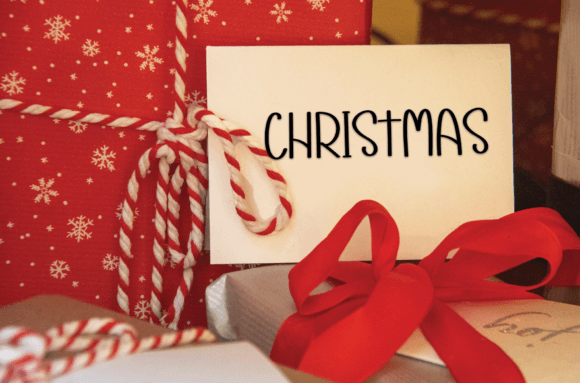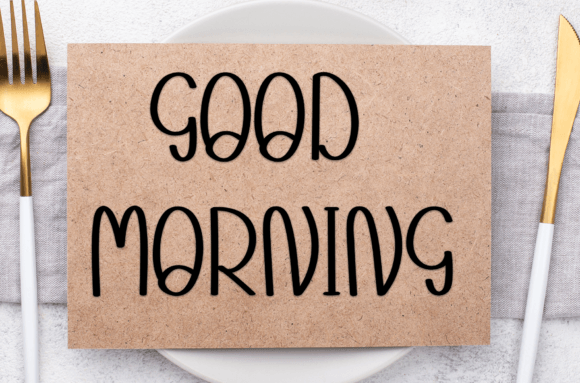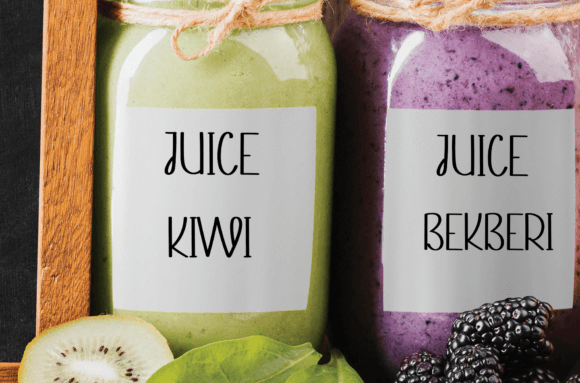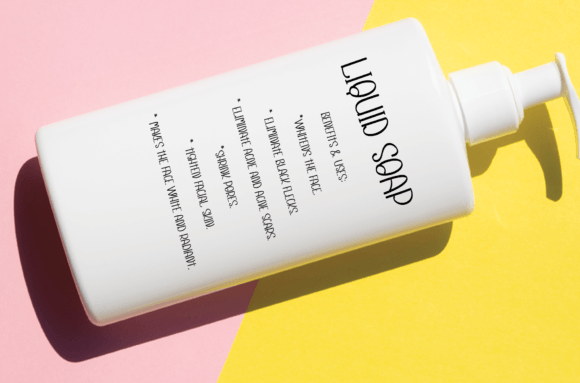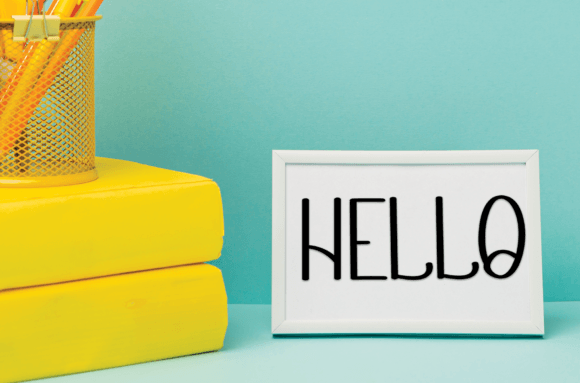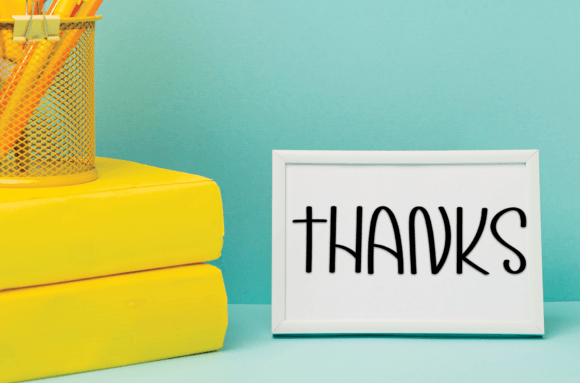
Easter Cute Font: Add a Sweet and Friendly Touch to Your Designs
Are you looking for a font that can add a lovely touch to your designs? Look no further than Easter Cute Font! This sweet and friendly handwritten font is perfect for creating beautiful wedding invitations, cards, and other designs that require a personal and relaxed feel. In this article, we’ll explore the features and benefits of Easter Cute Font and how you can use it to take your designs to the next level.
What is Easter Cute Font?
Easter Cute Font is a beautiful handwritten font that is designed to be fun and relaxed. Its sweet and friendly style makes it perfect for a variety of design projects, from wedding invitations and cards to social media graphics and more. The font is carefully crafted to create a personal and approachable feel, making it ideal for designers and crafters who want to add a touch of warmth and personality to their work.
Key Features of Easter Cute Font
- Sweet and Friendly Style: Easter Cute Font has a unique and charming style that is sure to capture the attention of your audience.
- Handwritten Design: The font is designed to look like it’s handwritten, giving it a personal and relaxed feel.
- Fun and Relaxed: Easter Cute Font is perfect for designs that require a fun and relaxed vibe, such as wedding invitations, birthday cards, and more.
- Easy to Read: The font is clear and easy to read, making it perfect for body text and headings.
Benefits of Using Easter Cute Font
There are many benefits to using Easter Cute Font in your designs. Here are a few:
- Adds a Personal Touch: Easter Cute Font adds a personal and friendly touch to your designs, making them more approachable and engaging.
- Perfect for Wedding and Event Designs: The font is ideal for wedding invitations, save-the-date cards, and other event designs that require a sweet and romantic feel.
- Versatile: Easter Cute Font can be used for a variety of design projects, from digital graphics to print materials.
- Easy to Pair: The font pairs well with other fonts and design elements, making it easy to incorporate into your existing design workflow.
How to Use Easter Cute Font
Using Easter Cute Font is easy! Here are a few tips to get you started:
- Wedding Invitations: Use Easter Cute Font to create beautiful and romantic wedding invitations that set the tone for your special day.
- Cards and Stationery: Add a personal touch to your cards and stationery with Easter Cute Font.
- Social Media Graphics: Use the font to create fun and engaging social media graphics that showcase your personality and brand.
- Digital and Print Materials: Easter Cute Font can be used for a variety of digital and print materials, including brochures, flyers, and more.
Tips for Pairing Easter Cute Font with Other Design Elements
Pairing Easter Cute Font with other design elements can help you create a cohesive and visually appealing design. Here are a few tips:
- Pair with Bold Fonts: Pair Easter Cute Font with bold fonts to create contrast and add visual interest to your design.
- Use with Pastel Colors: Easter Cute Font looks great with pastel colors, which can add a soft and romantic touch to your design.
- Add Floral Elements: Floral elements, such as flowers and leaves, can complement Easter Cute Font and add a touch of whimsy to your design.
Easter Cute Font is a beautiful and versatile font that can add a sweet and friendly touch to your designs. With its handwritten style and fun and relaxed vibe, it’s perfect for wedding invitations, cards, and other designs that require a personal and approachable feel. Whether you’re a designer or crafter, Easter Cute Font is a great addition to your font collection. So why not give it a try and see how it can elevate your designs?